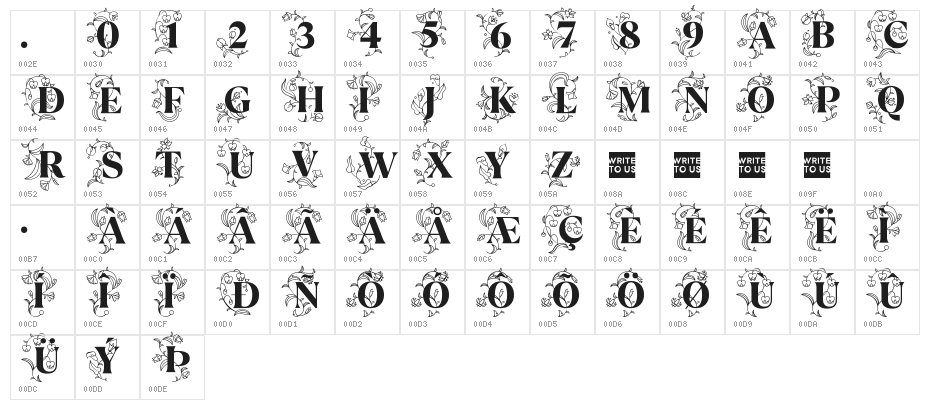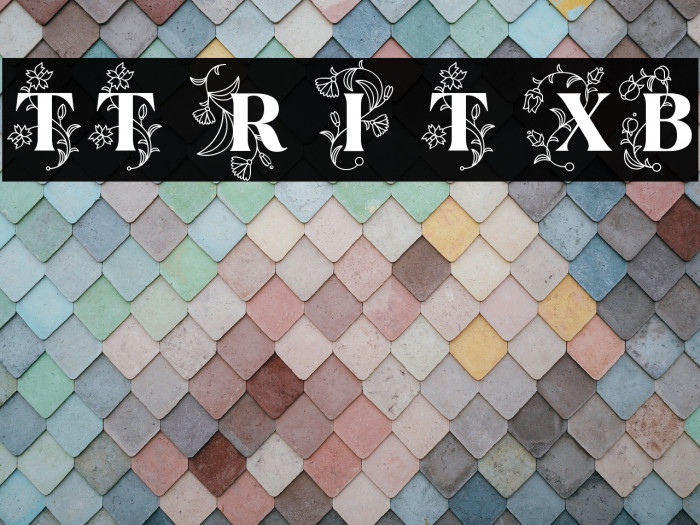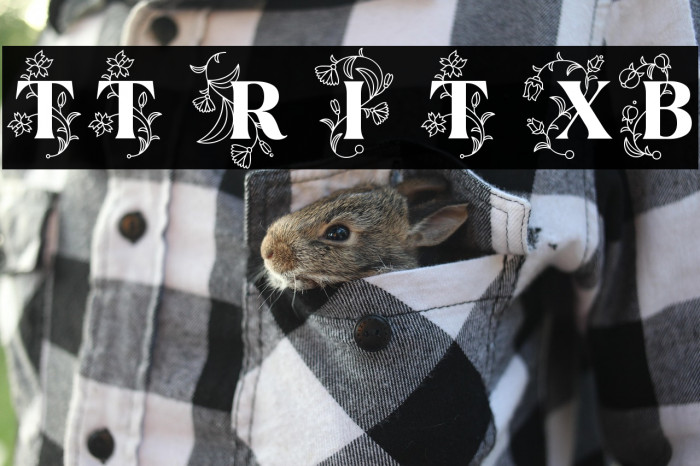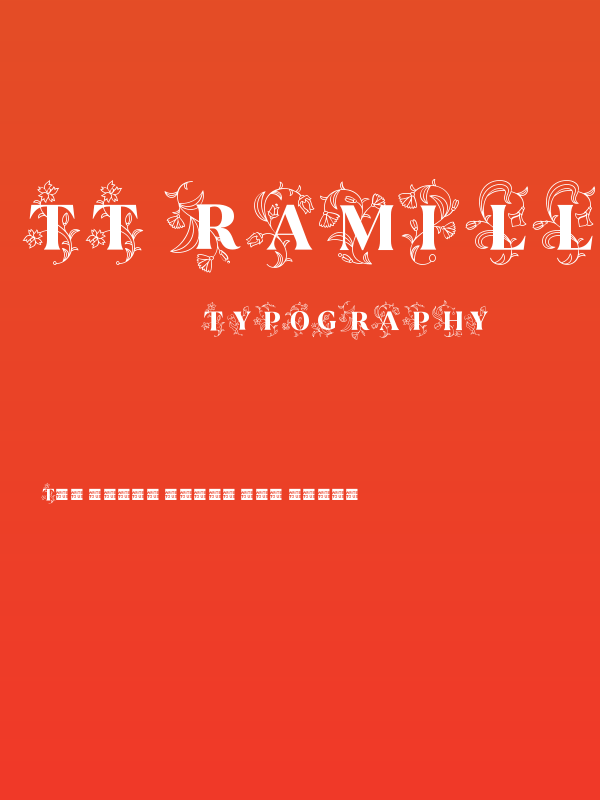
TT Ramillas Initials Trl XBd Font
TT Ramillas Initials Trl XBd Description
This font is a decorative and ornate typeface featuring intricate floral and vine embellishments intertwined with each character. The uppercase letters are bold and prominent, each adorned with unique botanical elements that give a sense of elegance and sophistication. The numbers follow the same decorative style, making them suitable for artistic and creative projects. The overall design is reminiscent of vintage or classical styles, with a modern twist due to the boldness of the characters. This font is perfect for projects that require a touch of nature and artistry, such as invitations, greeting cards, or branding materials that aim to convey luxury and refinement.
| Proposed Projects | Ideal for wedding invitations, luxury branding, artistic posters, and decorative signage. |